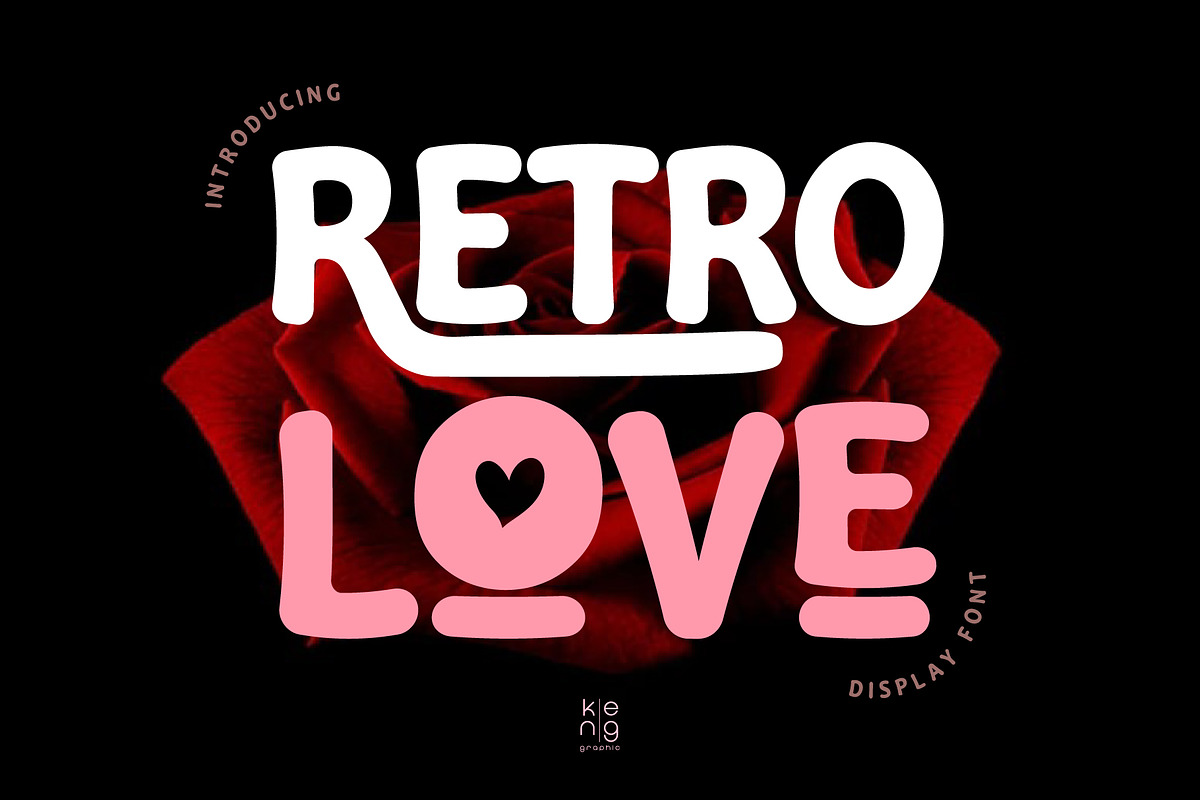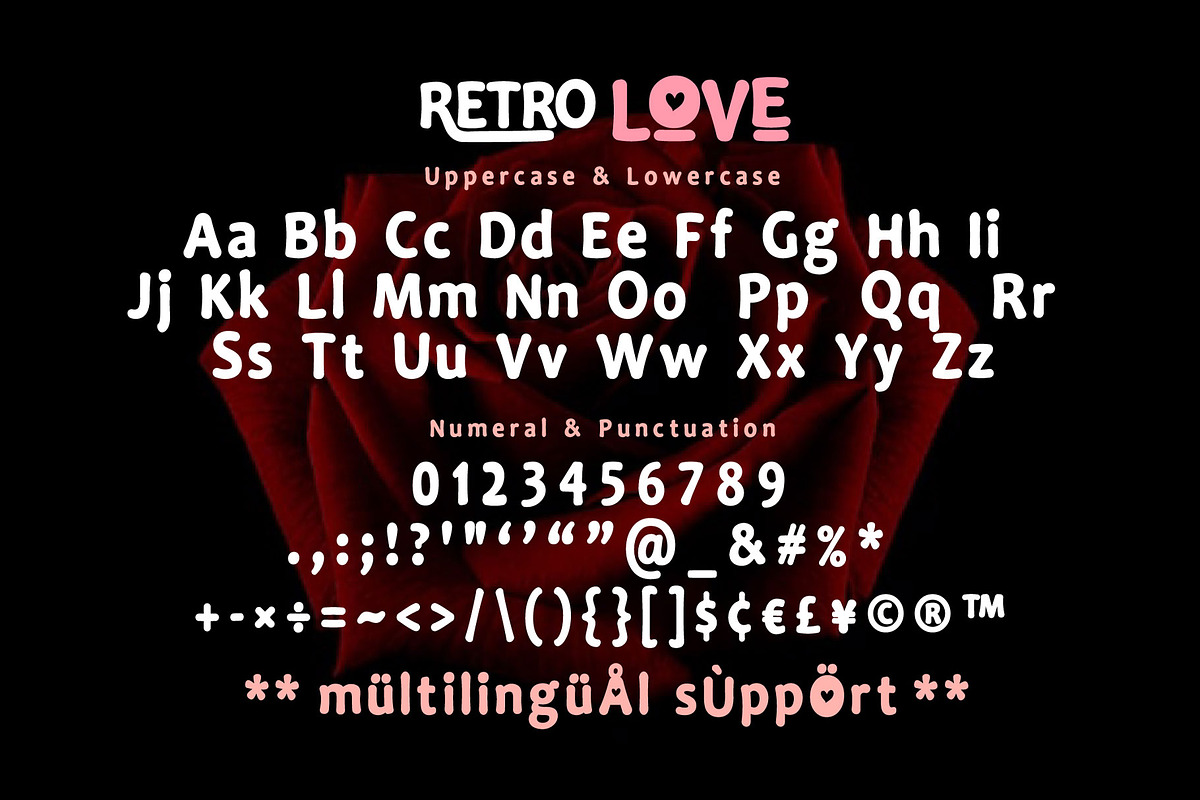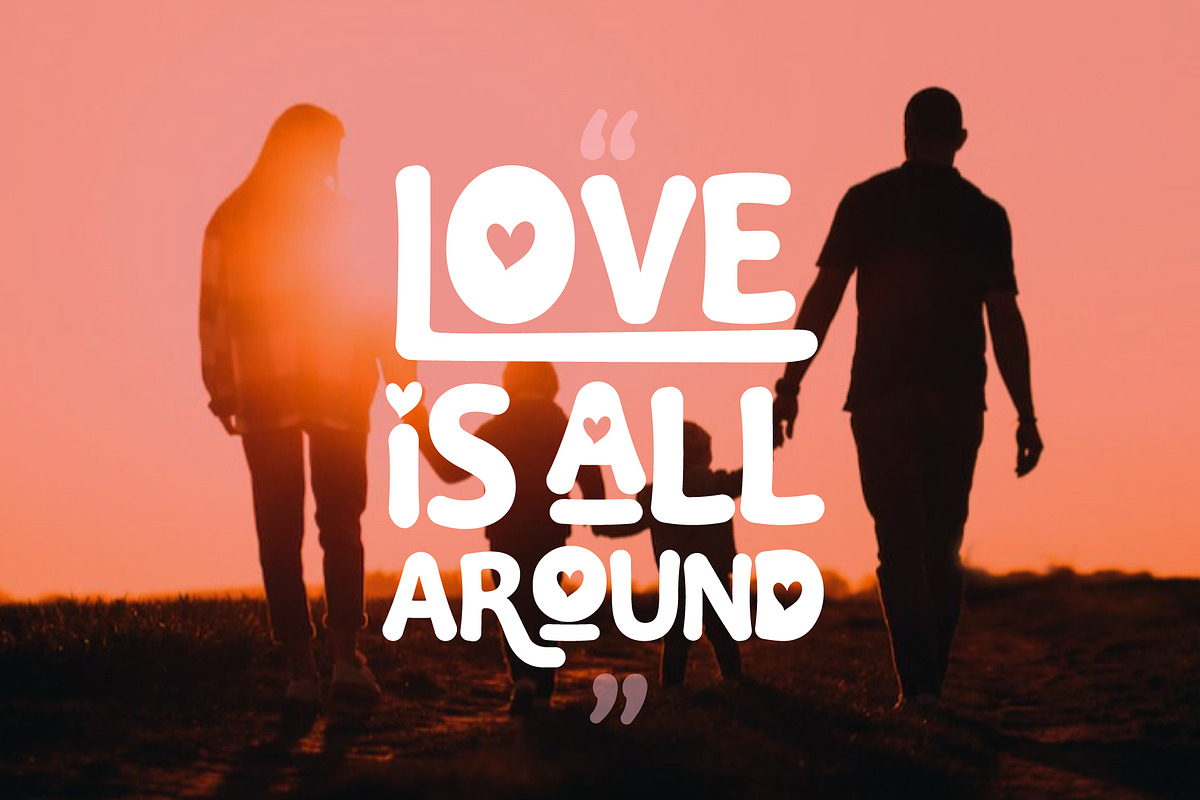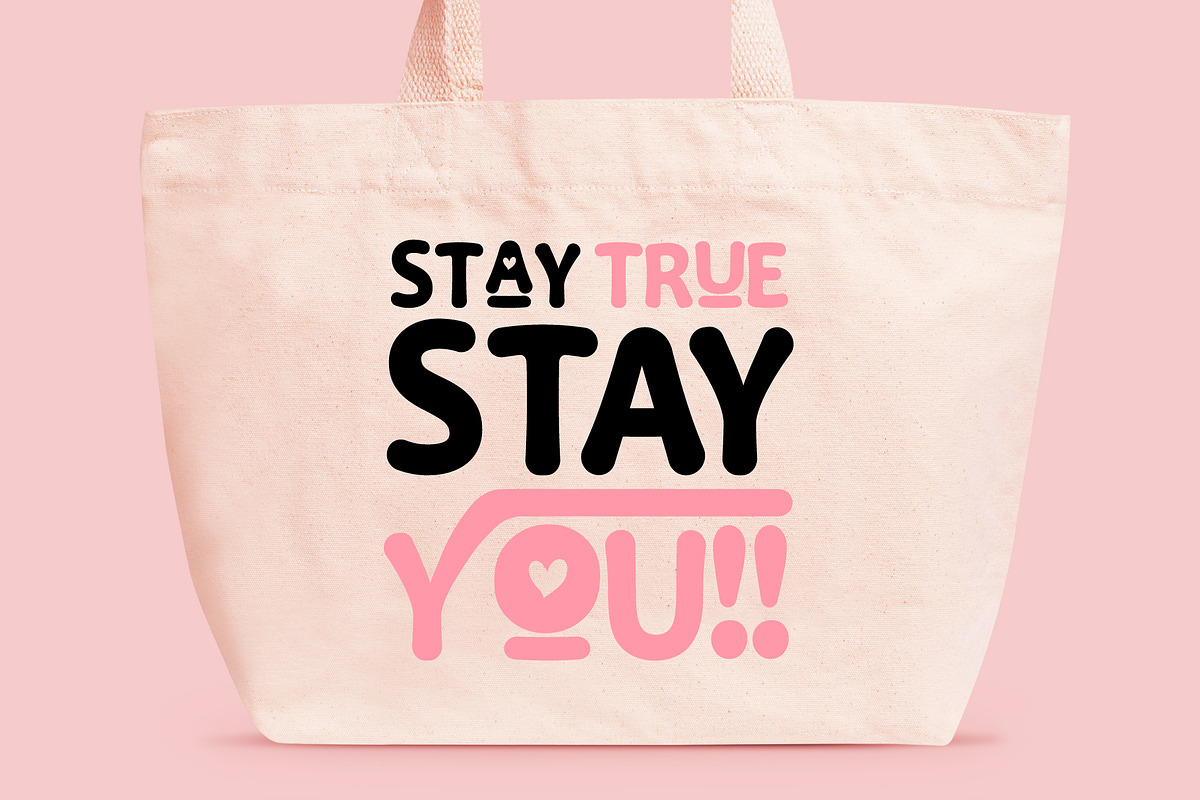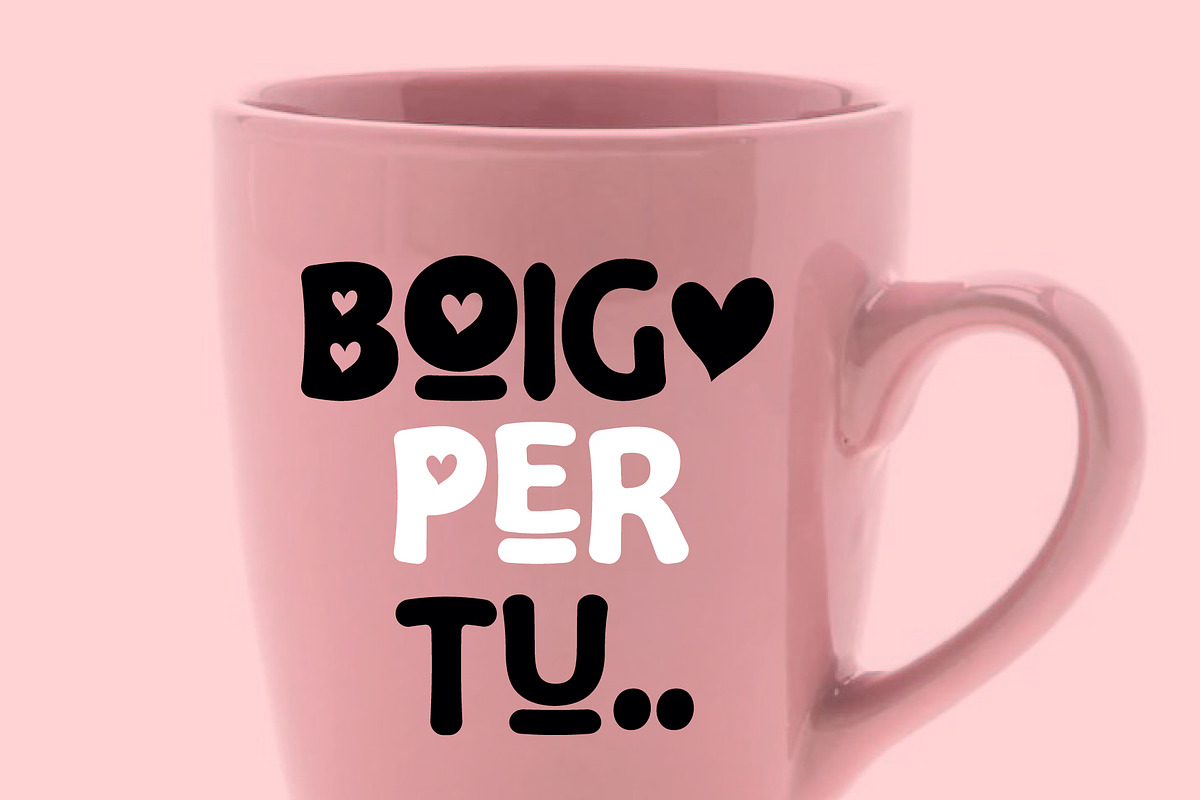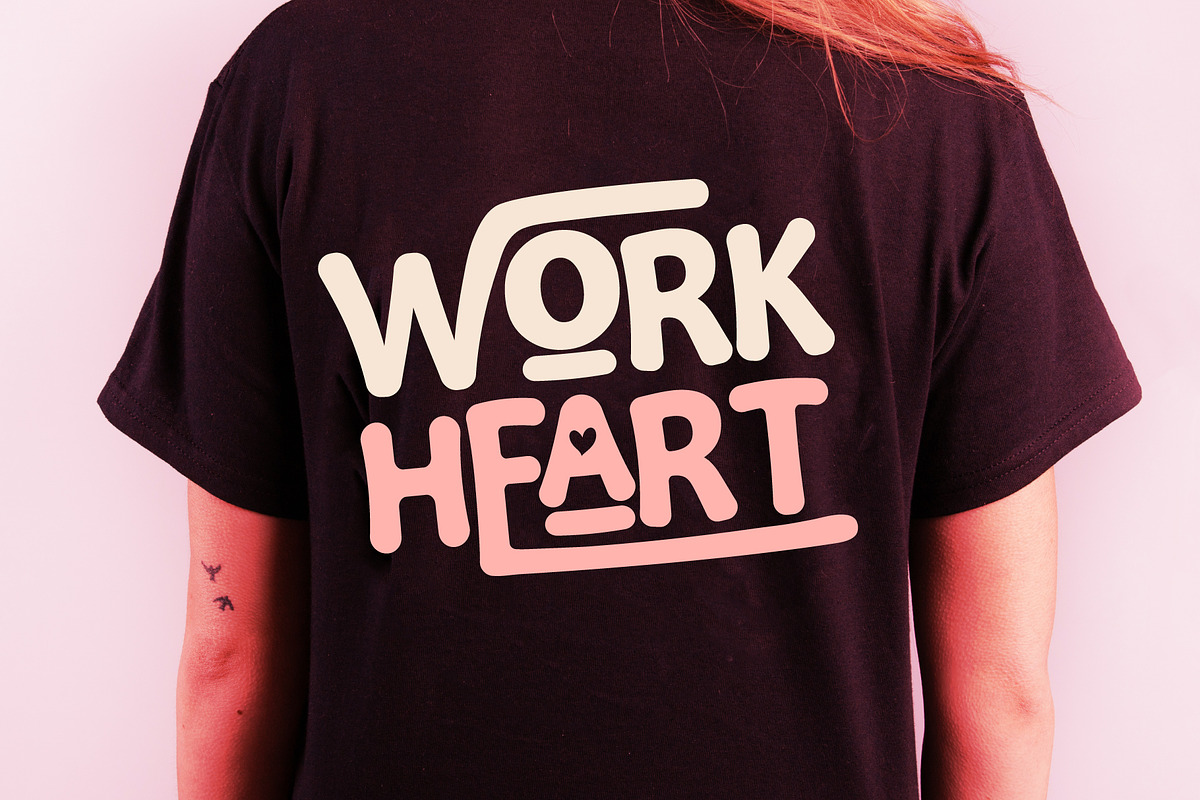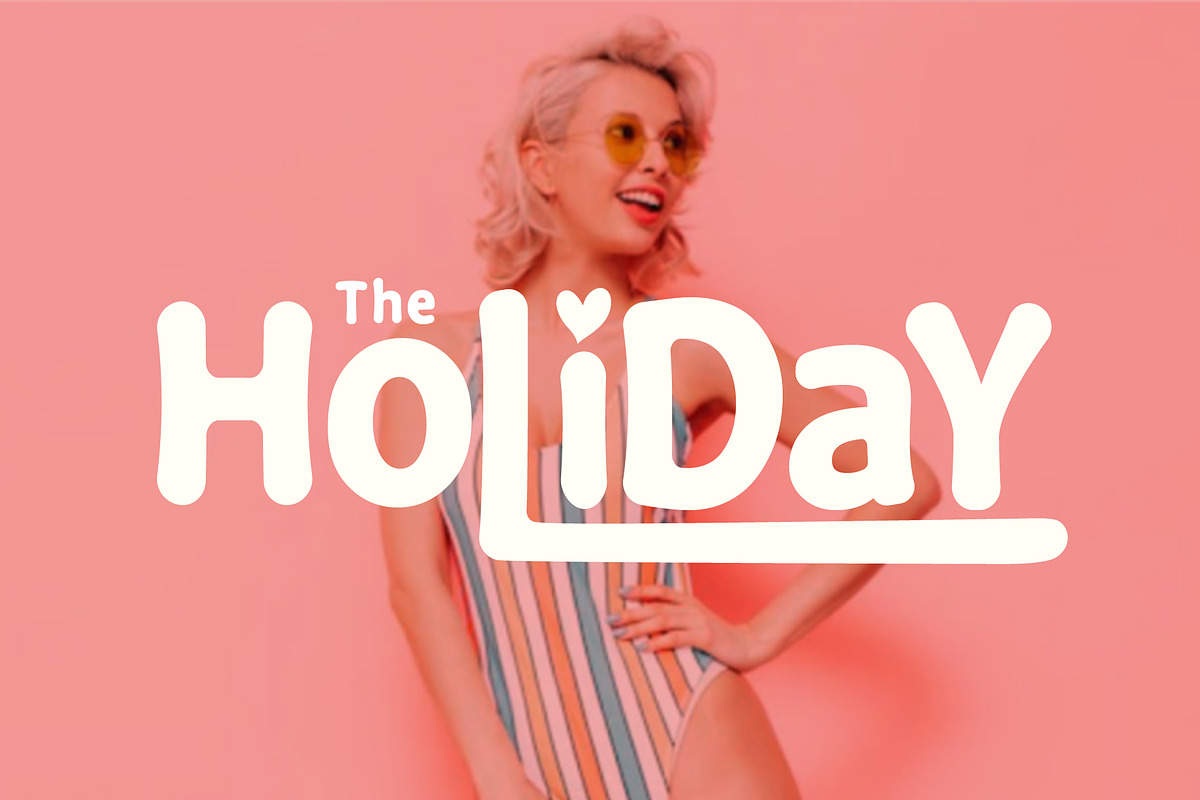
Retro Love Font
Retro Love is a display font of retro style with a great punch. It will work great for comic book style, online games, cards, love shirts, posters, movie titles, eye-catching social media posts, or anything that requires youthfulness and courage.